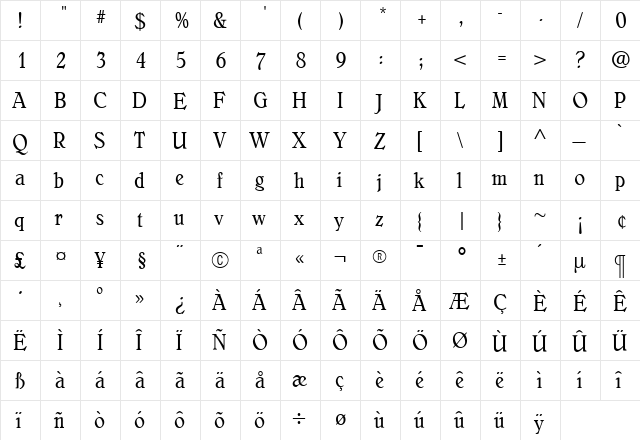
BelliniOriginalCondensed Regular
| Foundry | Copr. Red Rooster Typefounders |
Design Context for BelliniOriginalCondensed Typeface
BelliniOriginalCondensed is a composed and adaptable typeface that performs quietly and consistently across a wide range of design contexts. Its narrow stance lets it pack a punch even in space-constrained designs.